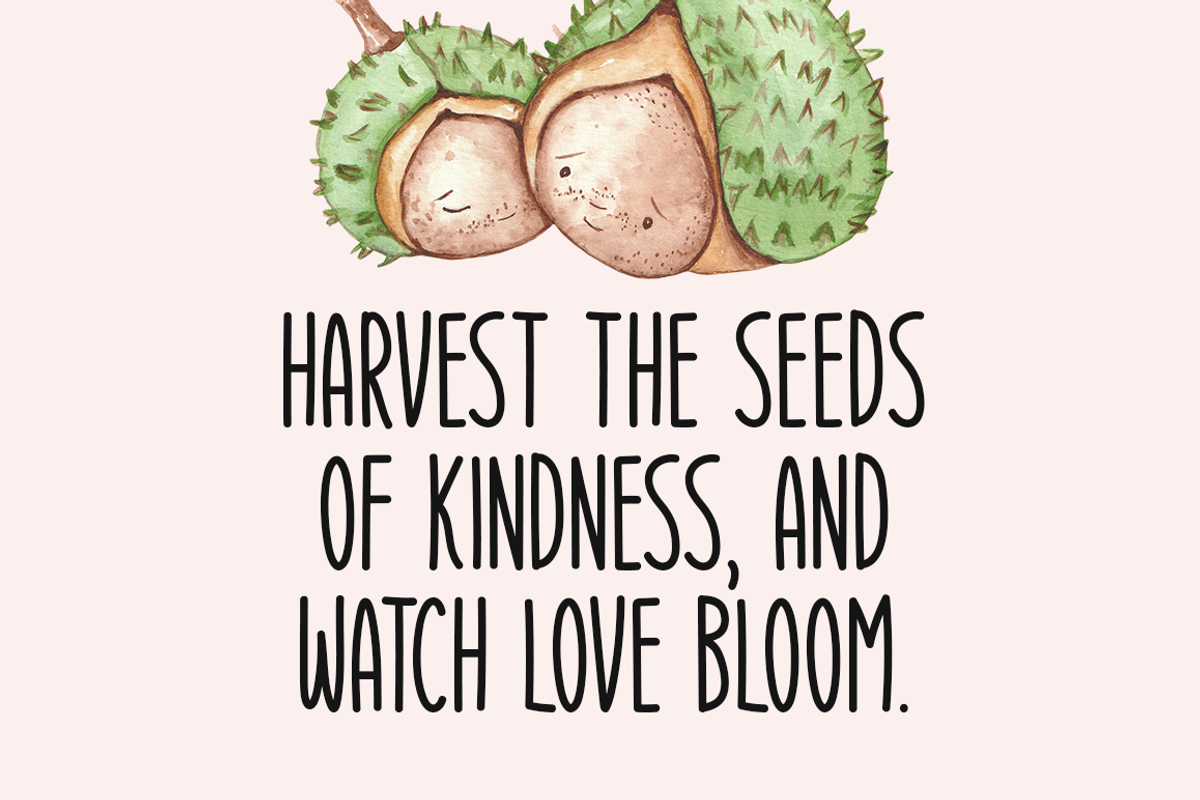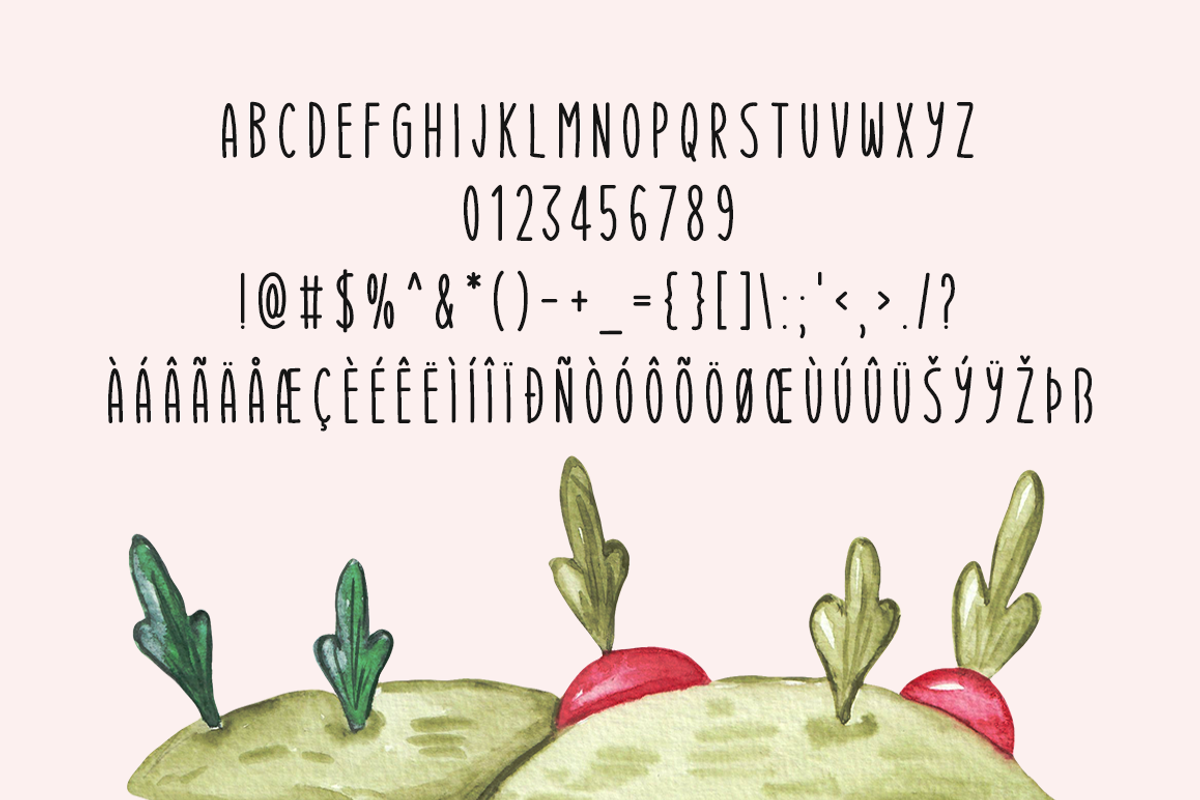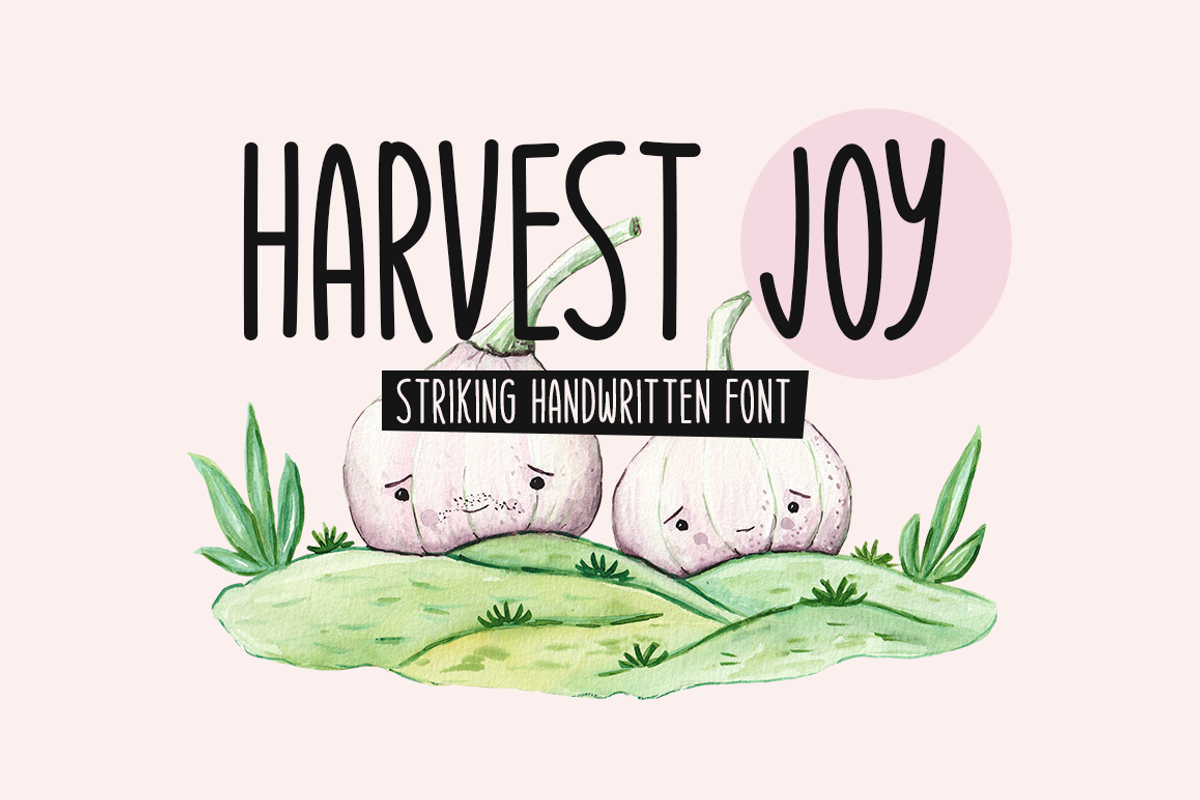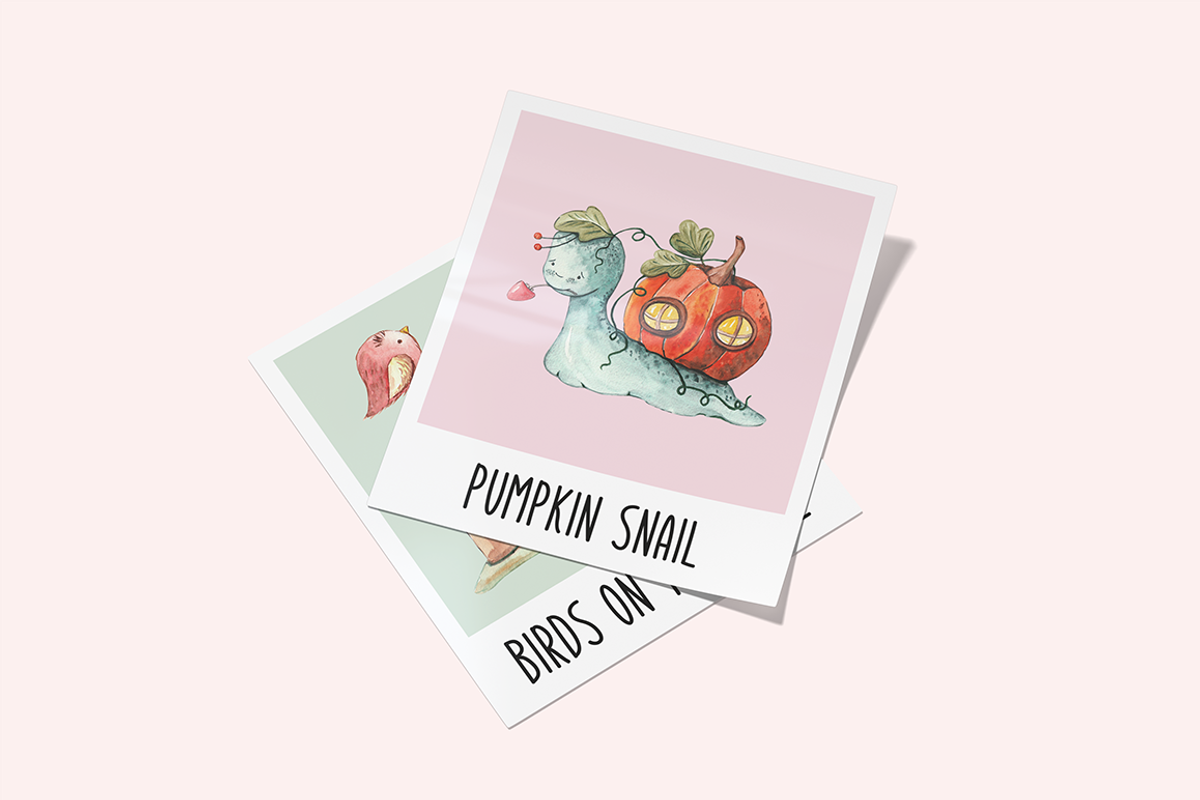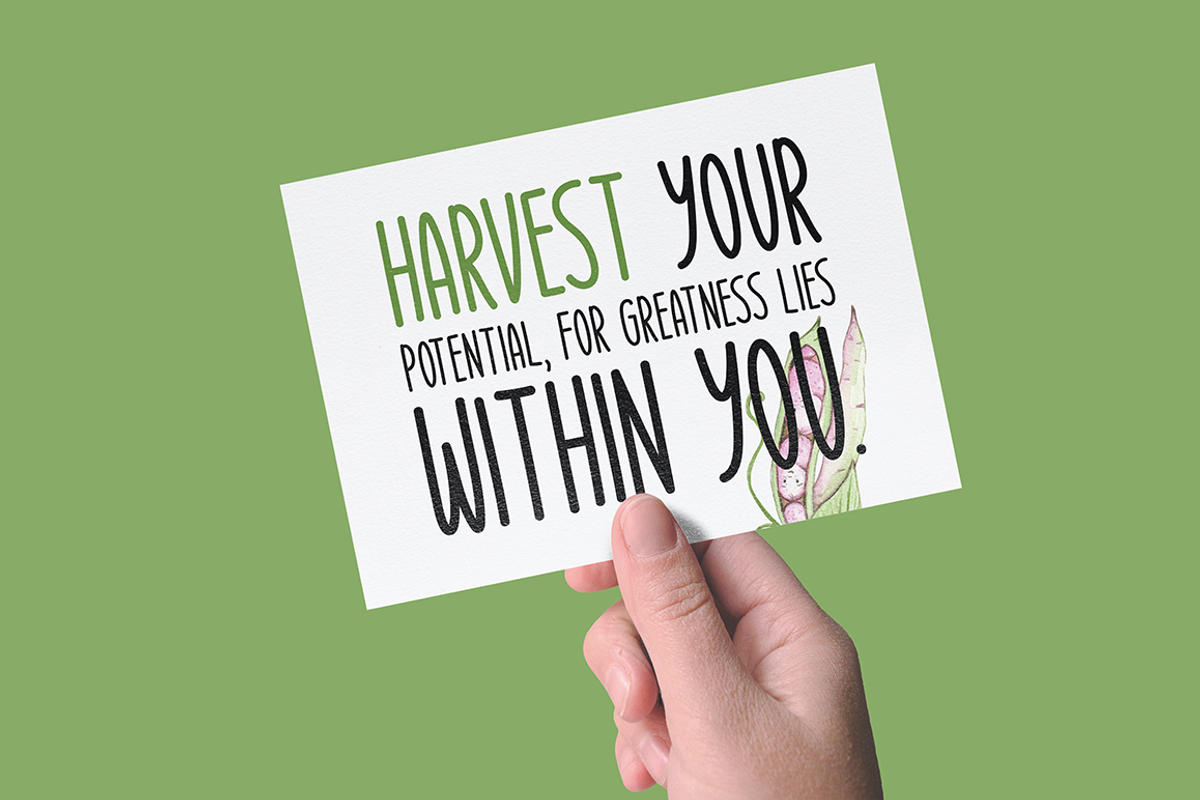
Harvest Joy Typeface
Introducing Harvest Joy!
Harvest Joy is a fun and creative handwritten font. It can easily be matched to an incredibly large set of projects, so add it to your creative ideas and notice how it makes them stand out!
Includes a range of multilingual support